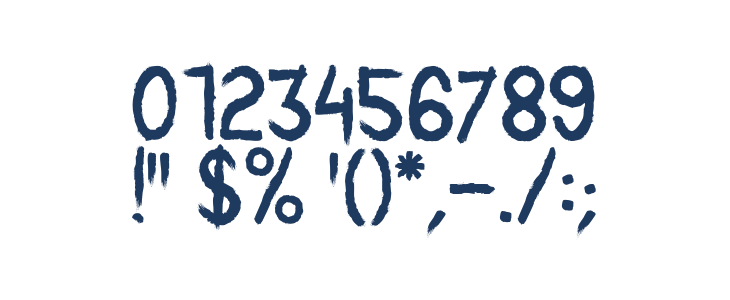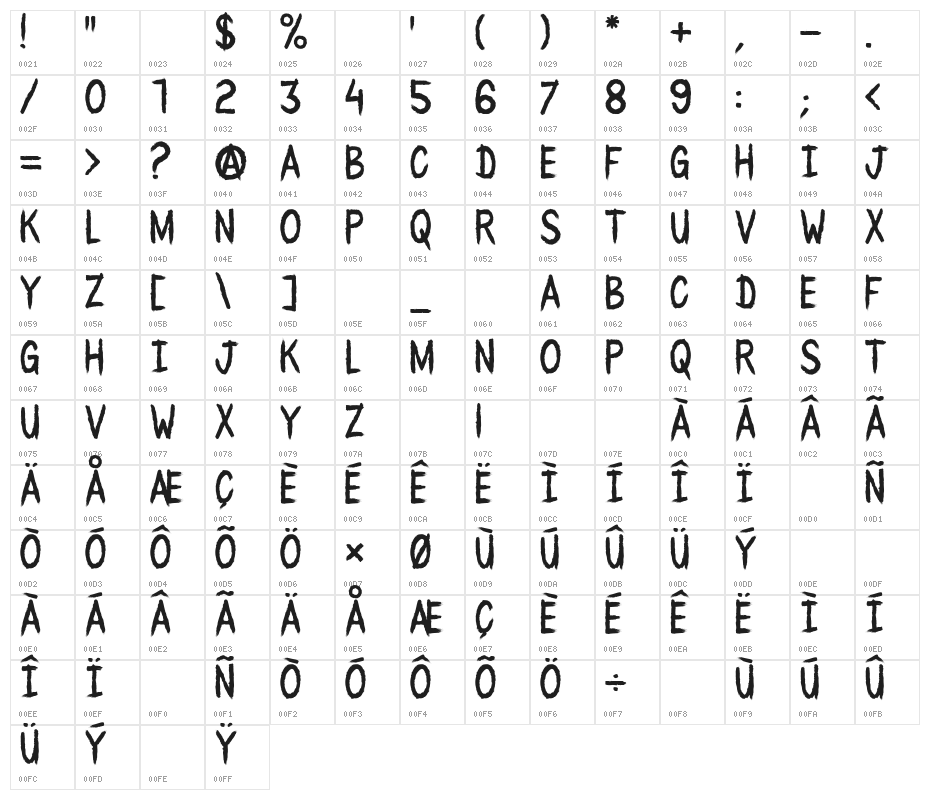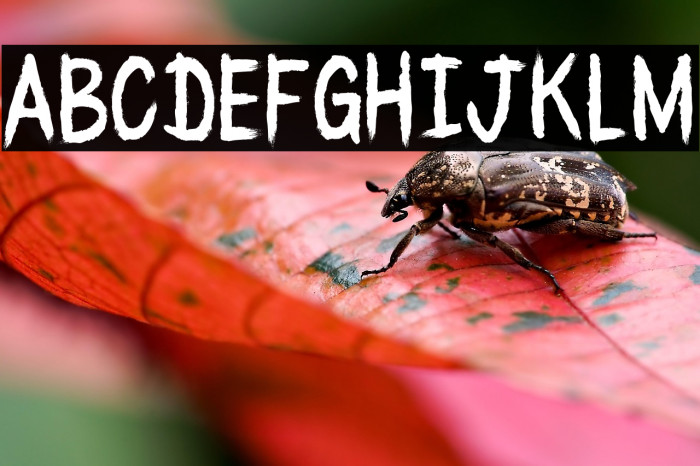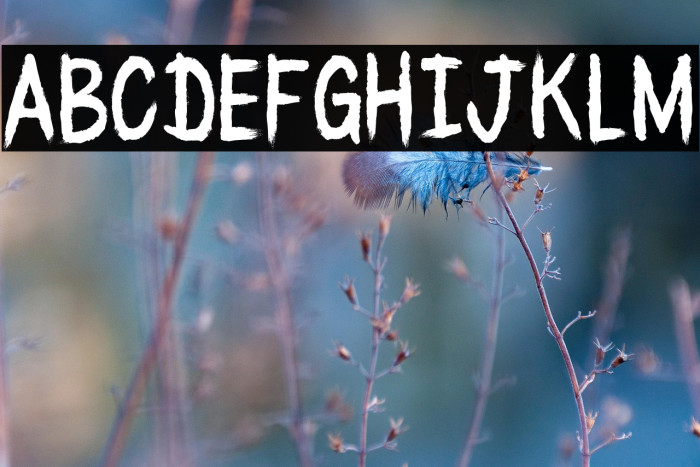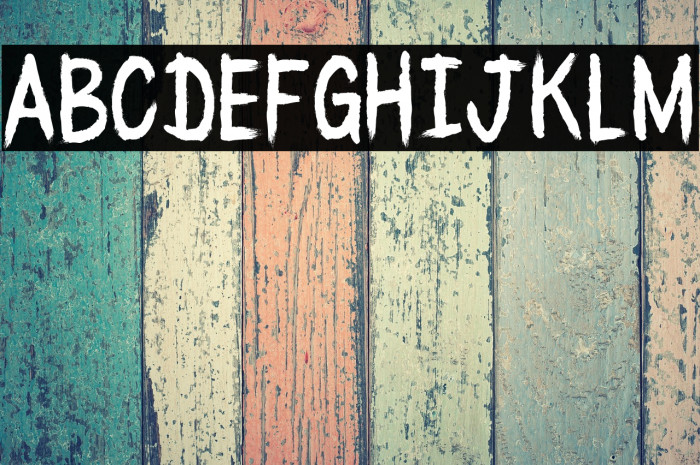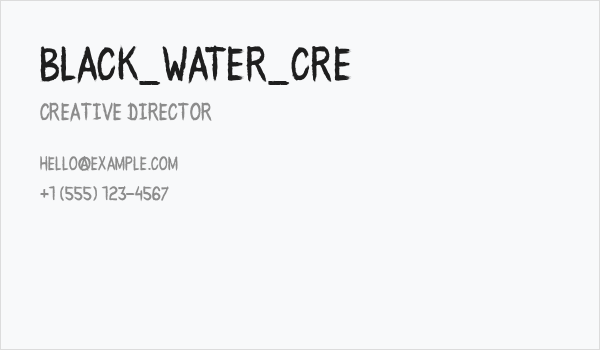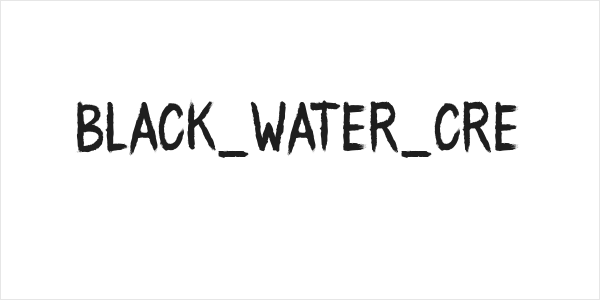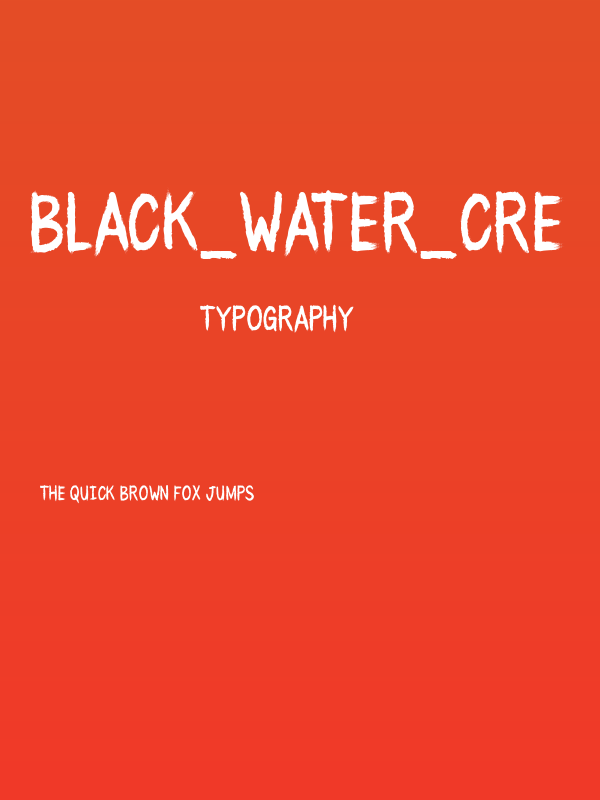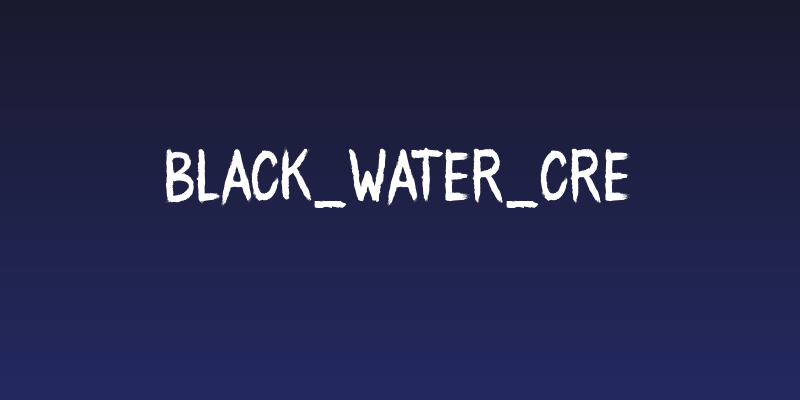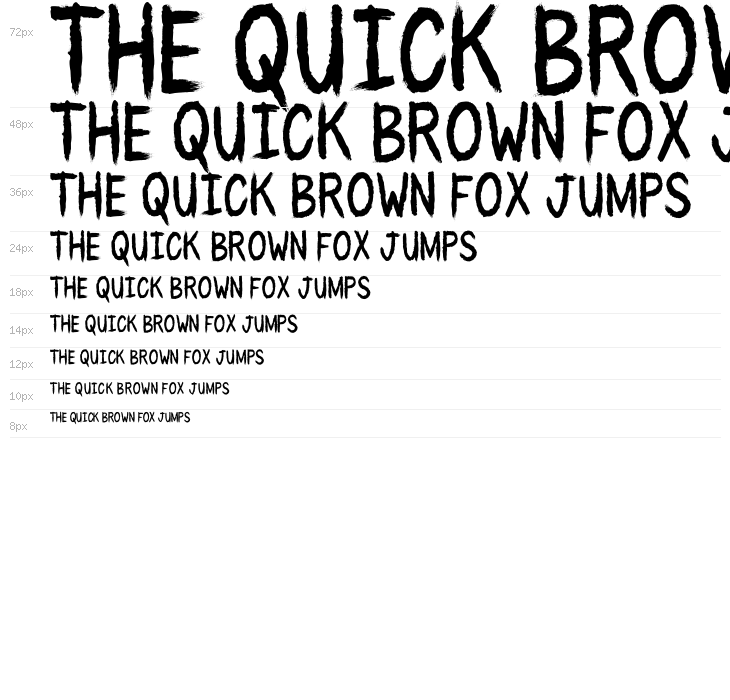
BLACK_WATER_CRE Font
BLACK_WATER_CRE Description
This font features a bold, hand-drawn style with a rough, textured appearance that gives it a dynamic and energetic feel. The characters are slightly irregular, adding to the handmade aesthetic. The uppercase and lowercase letters maintain a consistent height, while the numbers and special characters follow the same rugged design. This font's unique style is perfect for projects that require a personal touch or an edgy, artistic vibe.
| Proposed Projects | Ideal for posters, album covers, graffiti art, and creative branding. |